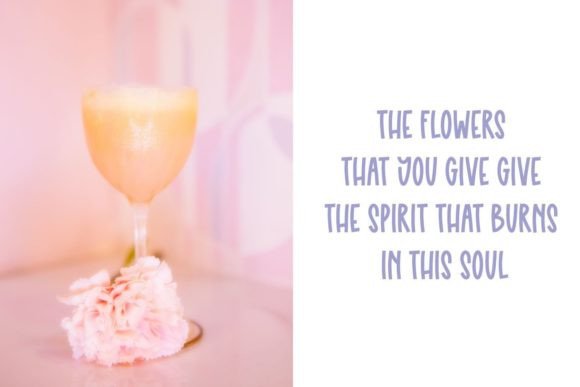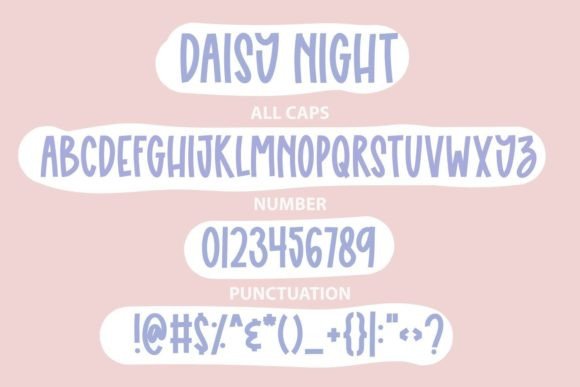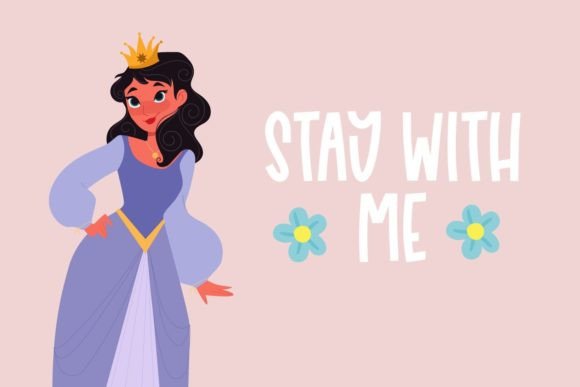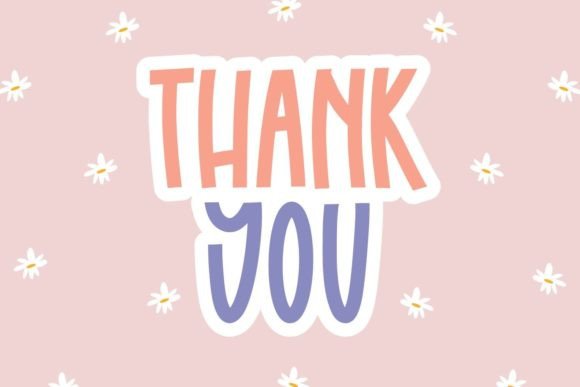
Introduction to Daisy Night Font
Daisy Night embodies fun, quirkiness and authenticity.
This enchanting handwritten font will turn any creative idea into a true standout Get creative with its childlike playfulness, and use it to brighten up any kids and school project.
Key Features of Daisy Night Font
Why Choose Daisy Night Font?